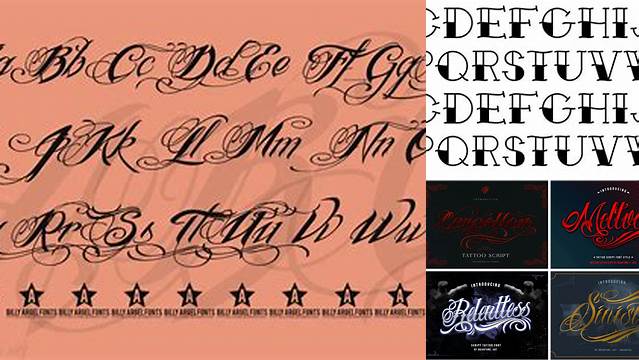
Tattoo Fonts In HTML: A 1001 Fonts Style Guide
Hey guys! Are you looking to dive into the awesome world of tattoo fonts and how to use them in HTML? You've landed in the perfect spot! In this article, we're going to explore the amazing variety of tattoo fonts available on platforms like 1001 Fonts, and more importantly, how to implement them in your HTML projects. Whether you're a web designer aiming to add an edgy touch to your website or a tattoo artist showcasing your designs online, understanding how to use these fonts is crucial. So, let's get started and unravel the secrets of tattoo fonts in HTML!
Understanding Tattoo Fonts
First off, let's talk about what makes a font a “tattoo font.” These fonts often mimic the styles seen in tattoo art, drawing inspiration from various subgenres such as Old School, tribal, calligraphy, and more. Think bold lines, intricate swirls, and a generally badass vibe. You'll find that tattoo fonts are more than just a typeface; they're a statement. These fonts are designed to capture the essence of body art, making them perfect for projects that need a touch of rebellion or timeless artistry. The beauty of tattoo fonts lies in their diversity, each style telling a different story. From the classic, bold lines of traditional American tattoos to the delicate, flowing scripts inspired by calligraphy, there's a tattoo font for every mood and message. When choosing a tattoo font, consider the emotional impact you want to create. A bold, blocky font might convey strength and resilience, while a flowing script can evoke elegance and mystery. It's all about finding the right font to match your vision.
When browsing a site like 1001 Fonts, you'll encounter a massive collection. You'll see fonts that resemble old-school biker tattoos, complete with thick outlines and sharp edges, perfect for conveying a sense of toughness and grit. On the other hand, you'll find fonts that draw inspiration from traditional Japanese Irezumi, with flowing lines and intricate details that speak to artistry and discipline. There are also fonts that mimic the look of tribal tattoos, with bold, geometric shapes that carry deep cultural and historical significance. And let's not forget the calligraphy-inspired fonts, which range from elegant scripts reminiscent of classic penmanship to modern interpretations that blend tradition with contemporary flair. Understanding these nuances is key to selecting the perfect font for your project, ensuring it not only looks visually appealing but also resonates with your intended message. Tattoo fonts, in essence, are a blend of art and communication. They're not just about the letters themselves, but also about the emotions and stories they evoke. So, take your time, explore the vast landscape of tattoo fonts, and discover the perfect voice for your design.
Exploring 1001 Fonts for Tattoo Styles
Now, let's talk about 1001 Fonts, a fantastic online resource for font lovers. This site is a treasure trove of typefaces, including a wide array of tattoo-style fonts. Navigating the site is pretty straightforward, and you can easily search for fonts using keywords like "tattoo," "script," or "old English." What's cool about 1001 Fonts is that many of their fonts are free for personal use, which is awesome for hobbyists and personal projects. However, if you're planning to use a font for commercial purposes, always double-check the licensing terms. Font licensing can seem like a maze, but it’s important to understand the rules to avoid any legal hiccups down the road. Generally, fonts that are free for personal use come with limitations on how you can use them commercially. This might mean you need to purchase a commercial license if you're using the font for a business logo, website, or any other project that generates income.
Incorporating Tattoo Fonts in HTML: The Basics
Okay, so you've found the perfect tattoo font – now what? Let's talk HTML. To use a custom font in your HTML, you'll typically need to use CSS. There are a couple of ways to do this, but the most common method involves using the @font-face rule in your CSS stylesheet. This rule allows you to define a custom font and specify the URL where the font file is located. The basic syntax looks something like this:
In this snippet, font-family is the name you'll use to refer to the font in your CSS, and src is where you specify the path to your font files. You'll notice that we've included two font file formats: WOFF2 and WOFF. These are modern web font formats that offer good compression and browser support. It's a good practice to include both formats to ensure compatibility across different browsers. The format() function tells the browser what type of font file it's dealing with. font-weight and font-style are used to define the font's weight (e.g., bold) and style (e.g., italic), respectively. For most tattoo fonts, you'll probably stick with normal for both.
Once you've defined your custom font using @font-face, you can use it in your CSS rules just like any other font. For example, if you want to apply your tattoo font to all <h1> headings, you would write:
Here, we've specified 'YourTattooFont' as the preferred font and sans-serif as a fallback. Fallbacks are important because they ensure that your text remains readable even if the custom font fails to load. Browsers will try to use the first font in the list, and if it's not available, they'll move on to the next. Choosing a sensible fallback font, like a standard sans-serif or serif font, can help maintain the overall look and feel of your design even if the custom font doesn't load. In addition to using local font files, you can also incorporate fonts from online services like Google Fonts. This can simplify the process of managing font files and ensure that your fonts are served from a reliable source. However, for tattoo fonts, you might find that the selection on these services is limited compared to what's available on sites like 1001 Fonts. So, while online services are convenient, sometimes using local font files gives you more control and access to a wider range of styles. Remember, the key to successfully incorporating tattoo fonts in HTML is to correctly define them using @font-face and then apply them to your elements using CSS. With a little practice, you'll be adding edgy and stylish typography to your web projects in no time!
Step-by-Step Guide: Implementing Tattoo Fonts in Your Website
Let's walk through a step-by-step guide on how to actually implement these tattoo fonts into your website. First things first, download your chosen font from 1001 Fonts or any other reputable source. Make sure you download the font files in a web-friendly format like WOFF or WOFF2. These formats are optimized for web use and ensure the best compatibility across different browsers. Once you've downloaded the font, you'll typically receive a ZIP file containing the font files and possibly a license agreement. Extract the contents of the ZIP file to a folder on your computer. You should see files with extensions like .woff, .woff2, .ttf, or .otf. For web use, WOFF and WOFF2 are the preferred formats, as they offer better compression and browser support.